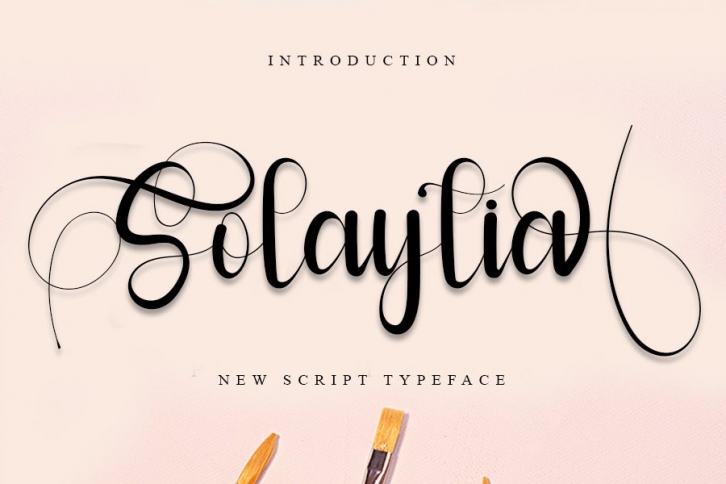
Solaytia is a great font that was designed by InermediaSTUDIO. Imagine the amount of combinations you can create using this font! The archive is 1.41 MB and it was released on March 12, 2021. Solaytia looks beautiful on wedding invitations, greeting cards, logos, posters, labels, t-shirt designs, logos, business cards and is perfect for use in ink or watercolor works, fashion, magazines, packaging and food menus, children's books and more!